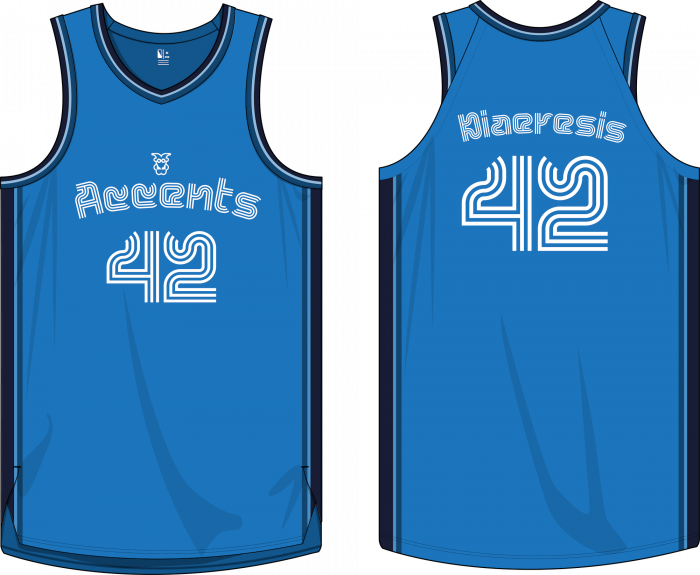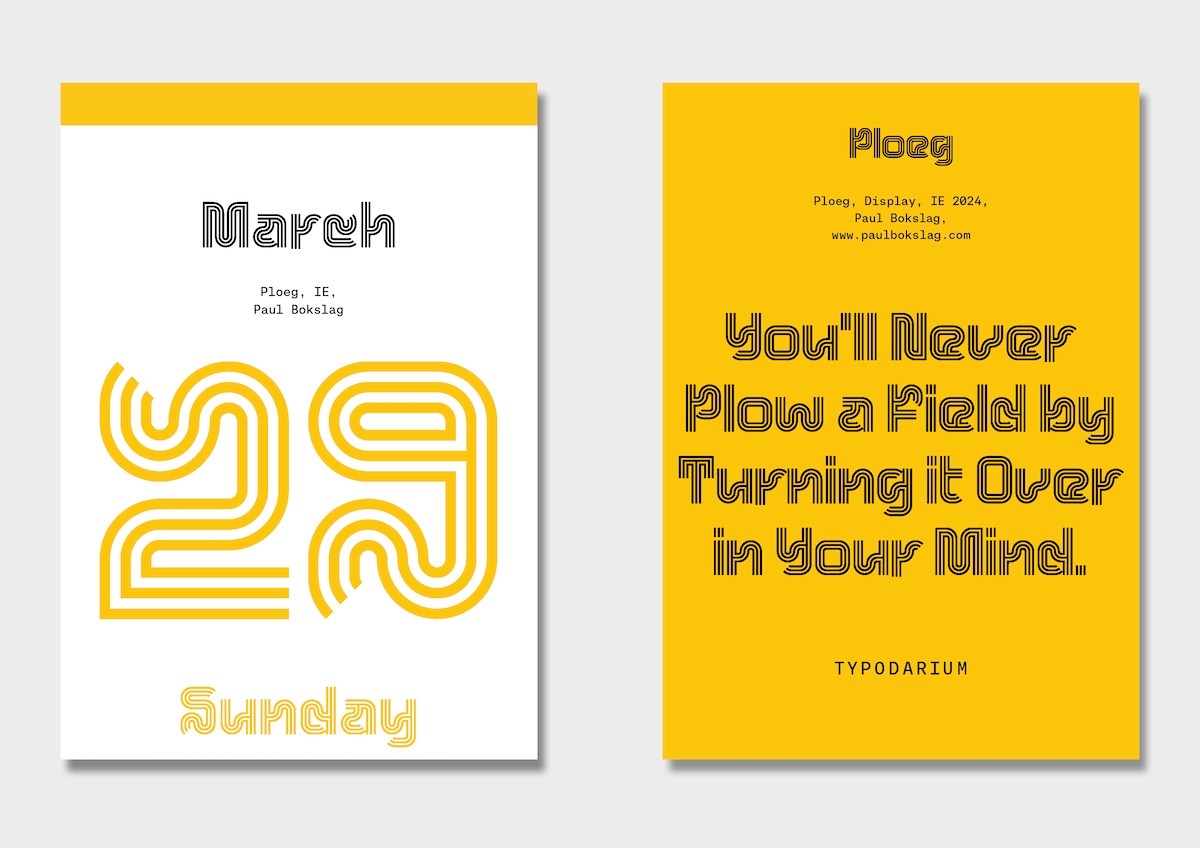
Very experimental stuff mate.. that had to be one hell of a farmer!
I'm not to sure about the Sharp S though.. It might be too wonky!
I like. I liked the last experiment with serifs and two lines and only uppercase ones even more, but here it's even cooler with lowercase ones. Only Z and 3 seem a bit "modest", you can use my suggestion (if you want). Good luck! Although you are so often lucky in these competitions ;)
This is the kind of fonts that I talked about, surprising and new! And I like the Z proposed by Dmitriy Sychiov. Good luck, compañero!
This font looks nice. Also, you should check the ŮůŸ as you missed the diacritics on those.